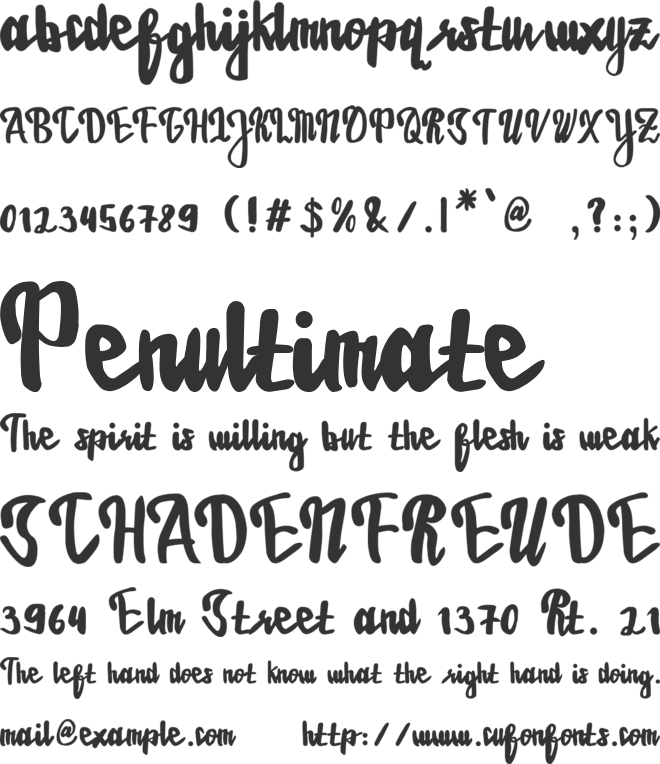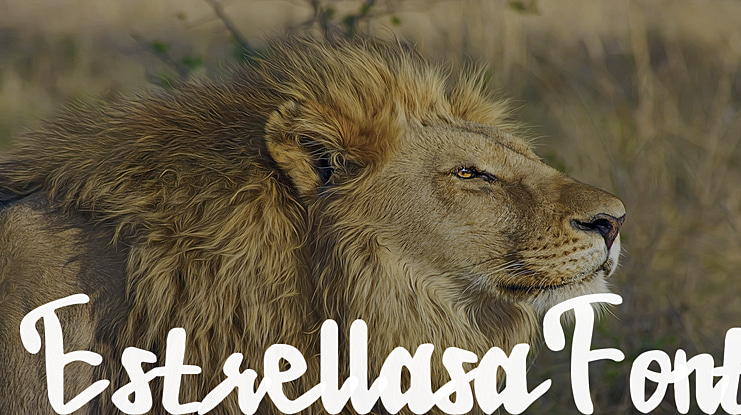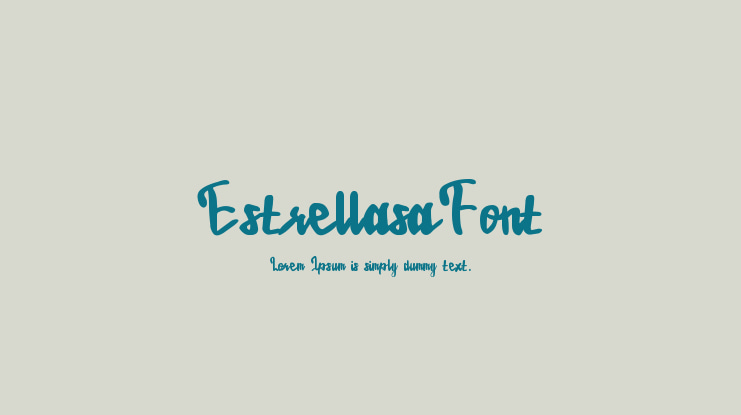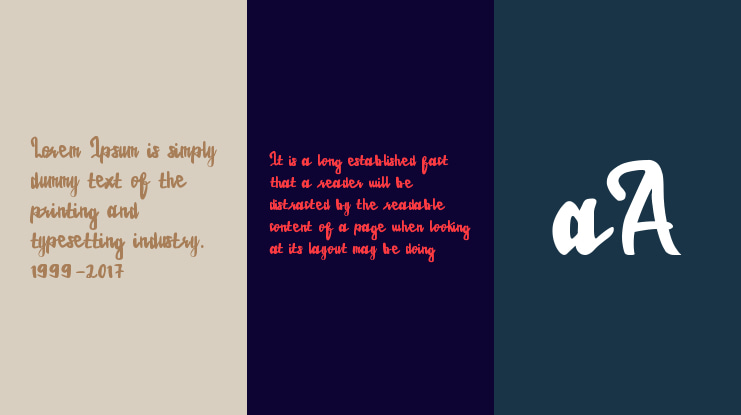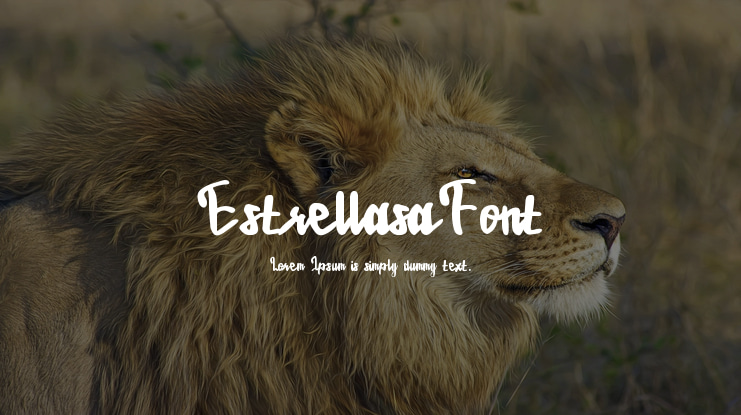
EstrellasaFont Font
Estrellasa is a Modern Script Handwritten Font make this Font looks Minimalist, Stylish and Natural. This Font is suites for many Project that need Handwritting Taste, such as logos & branding, invitation, stationery, wedding designs, etc.